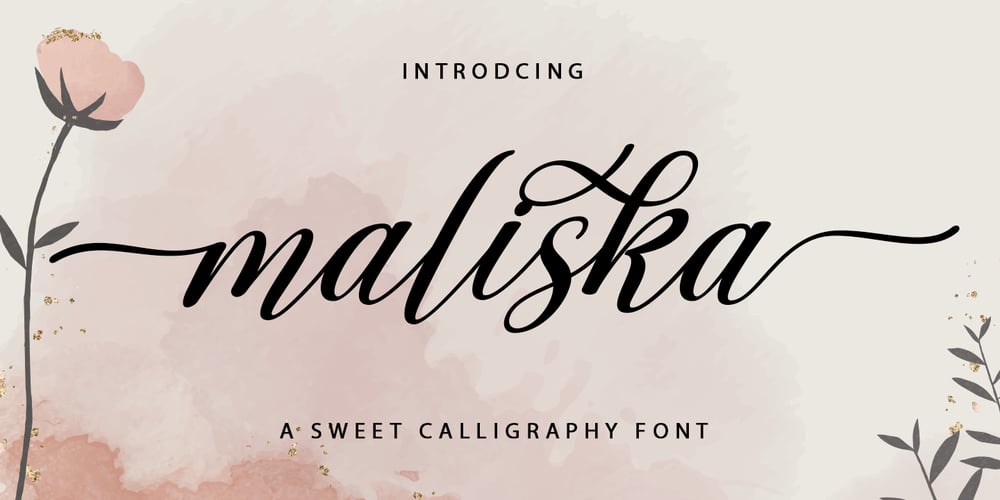
Maliska Script Font Family was designed by khaidir and published by Gatype. Maliska Script contains 1 styles and family package options. Maliska Script is a handwritten style calligraphy font featuring a varied baseline, smooth lines, a classic and elegant touch. Can be used for various purposes such as headings, signatures, logos, wedding invitations, t-shirts, letterheads, signage, labels, osters, badges etc.This typeface comes in uppercase, lowercase, punctuation, symbols & numbers, alternative style sets, ligatures, etc. also supports multilingual and is PUA encoded.